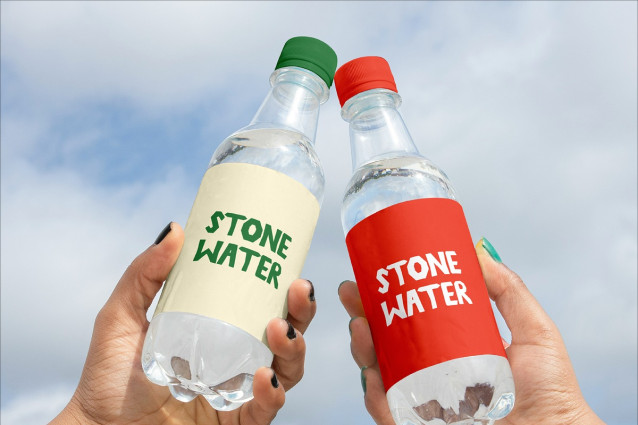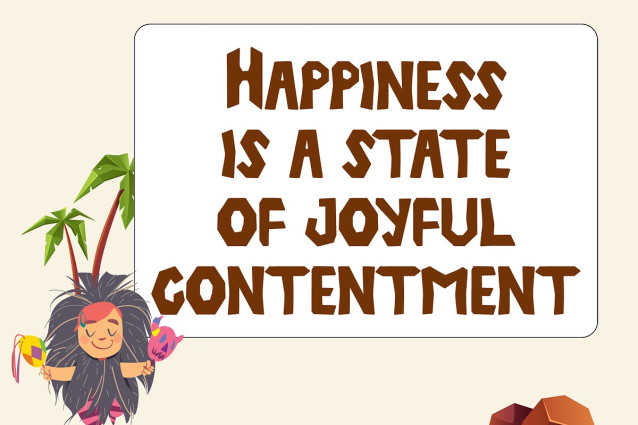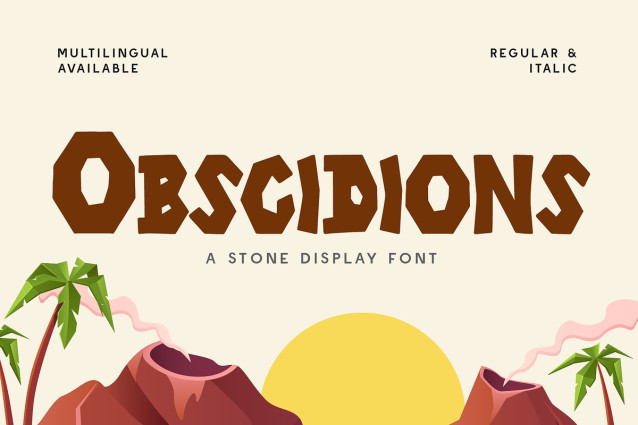
CF Obscidions Font
CF Obscidions Font a stone display font forged from molten creativity and prehistoric vibes. Inspired by volcanic rock and rugged terrain, this typeface features angular, sharp-cut forms that feel like they were chiseled straight from obsidian cliffs. Obscidions is built for designs that erupt with energy—perfect for adventure branding, dino-themed games, tropical illustrations, bold event posters, or anything that channels untamed nature and primitive strength. Available in Regular and Italic, it gives your work the raw power of ancient earth.